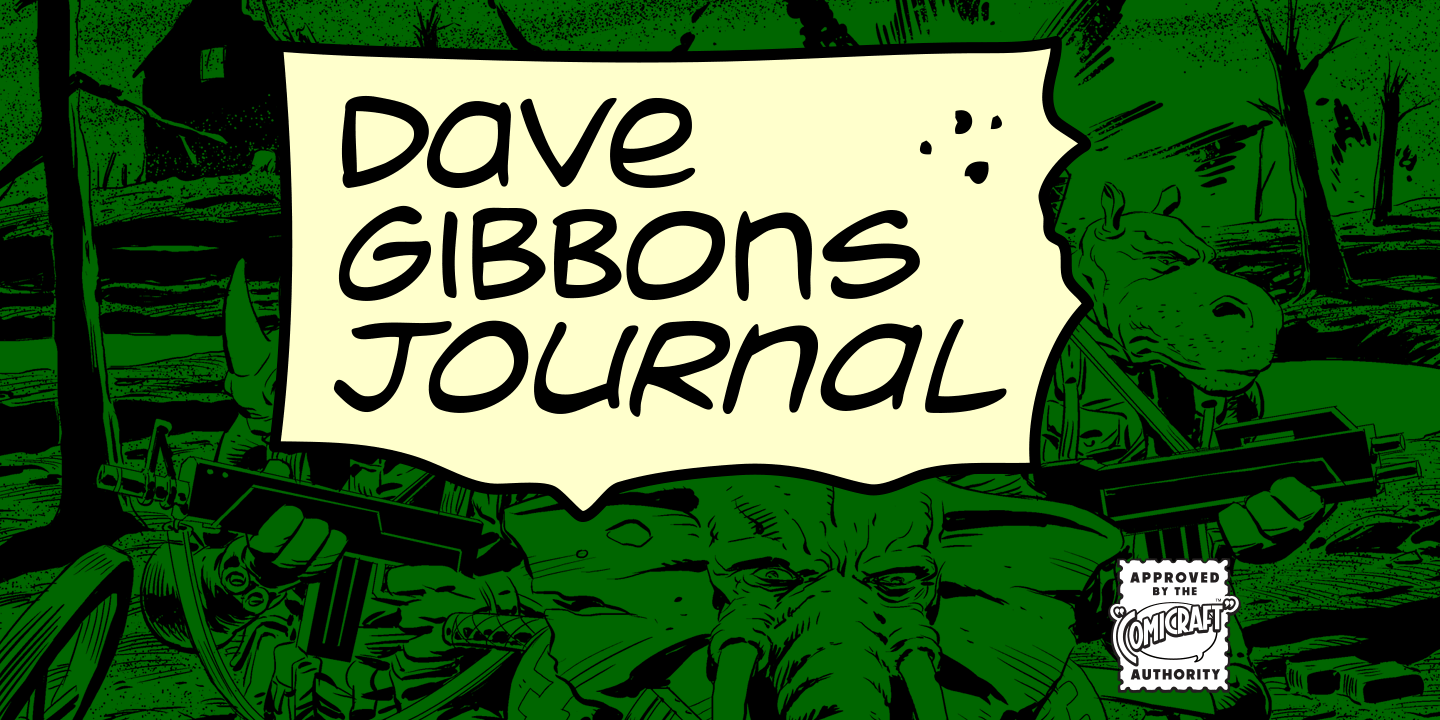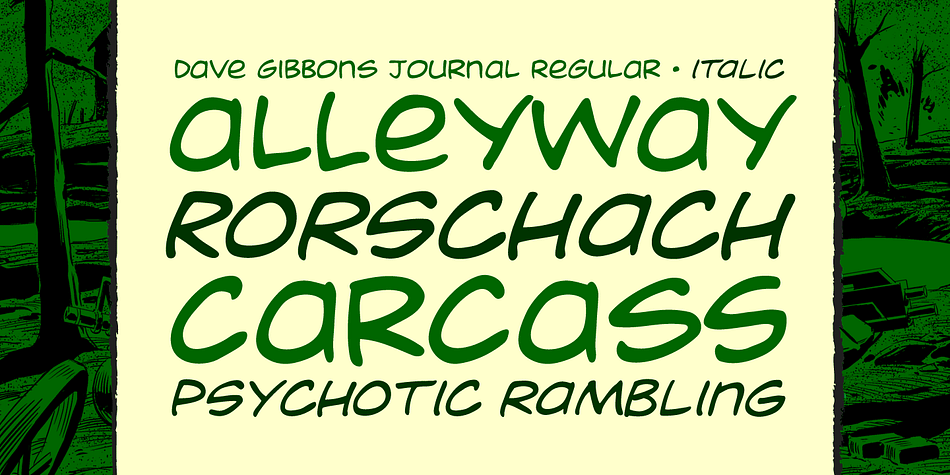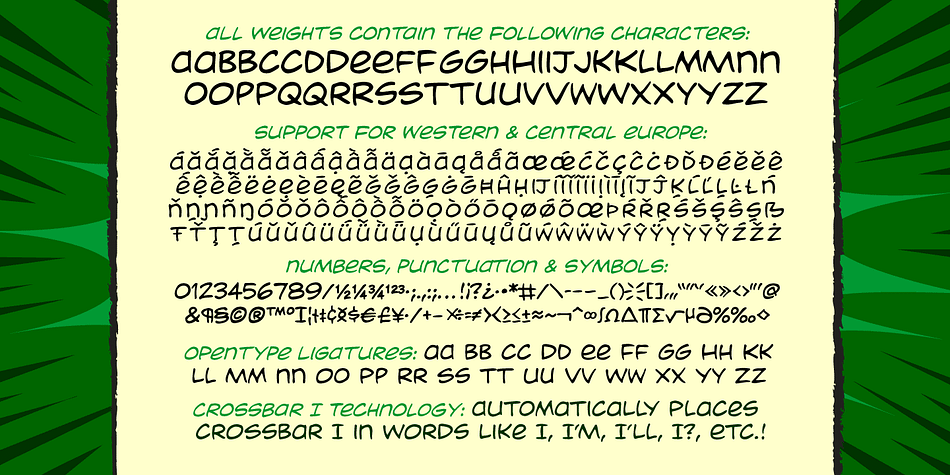
Dave Gibbons Journal is a comic and hand drawn font family. This typeface has two styles and was published by Comicraft.
Get over the trauma of seeing that icky dog carcass in the alley this morning, you know, the one with the tire tread on the burst stomach? The city might be afraid of you, but now you can see its true typeface. Yes, when the gutters between YOUR comic book panels are full of blood, we here at ComicBookFonts.com recommend DaveGibbonsJournal for all your psychotic ramblings. Don’t pose precariously on the precipice of a building without it.